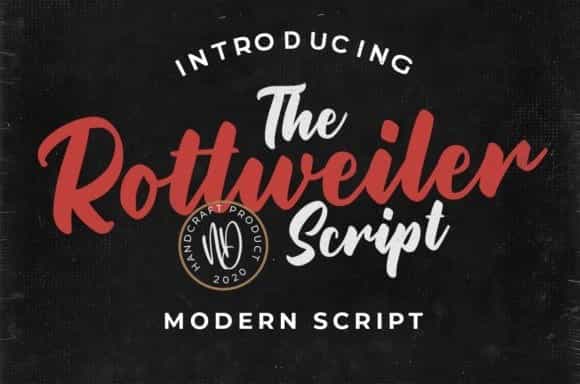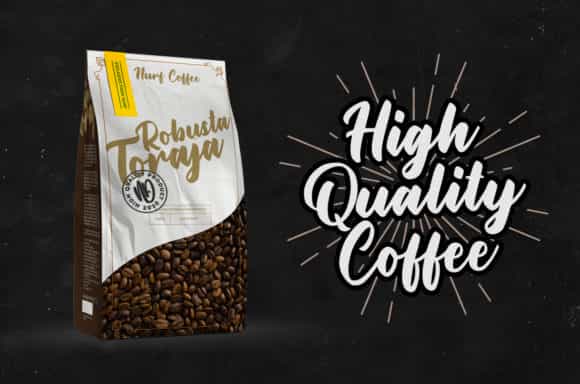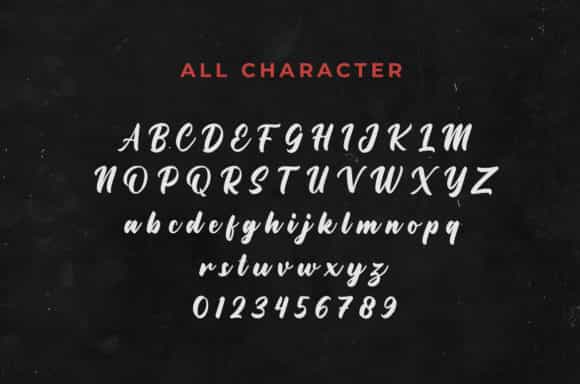
Rottweiler Script Font
Rottweiler is a hand written font with a classic and retro style, however the wild and irregular styles are highly legible. Its purpose is to imitate the appearance of handwritten words, but at the same time it should be clear and legible.